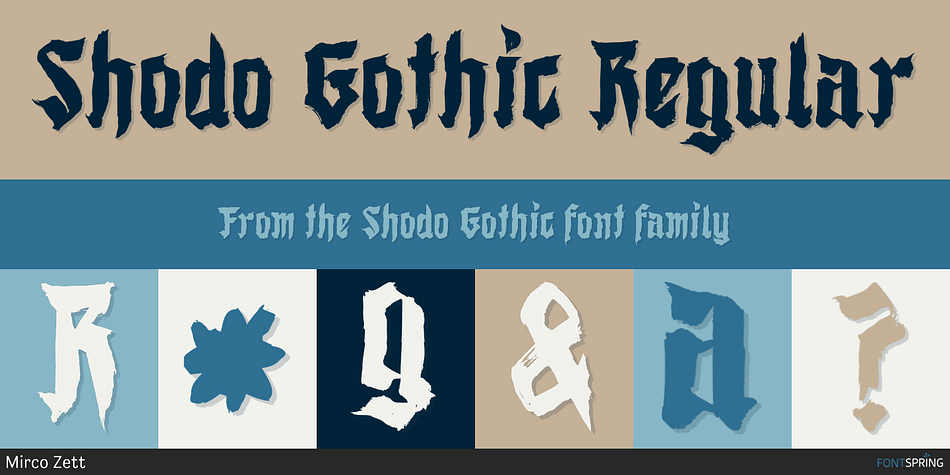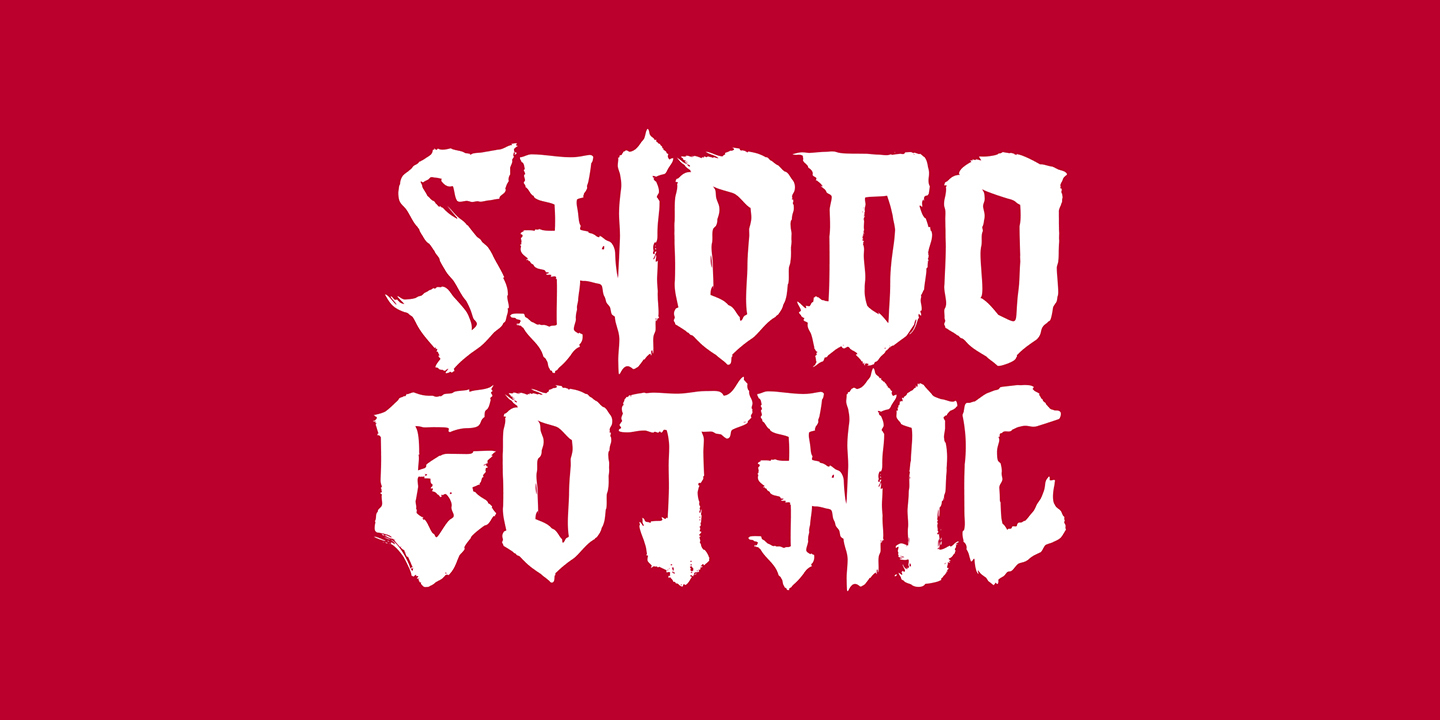
Shodo Gothic Regular
Designed by Mirco Zuchowski, Shodo Gothic is a blackletter and brush display font published by Mirco Zett.
Shodo Gothic is a mixture of western black letter typography and asian calligraphy.
Foundry Mirco Zett
Styles Blackletter, Brush Display
Designer Mirco Zuchowski